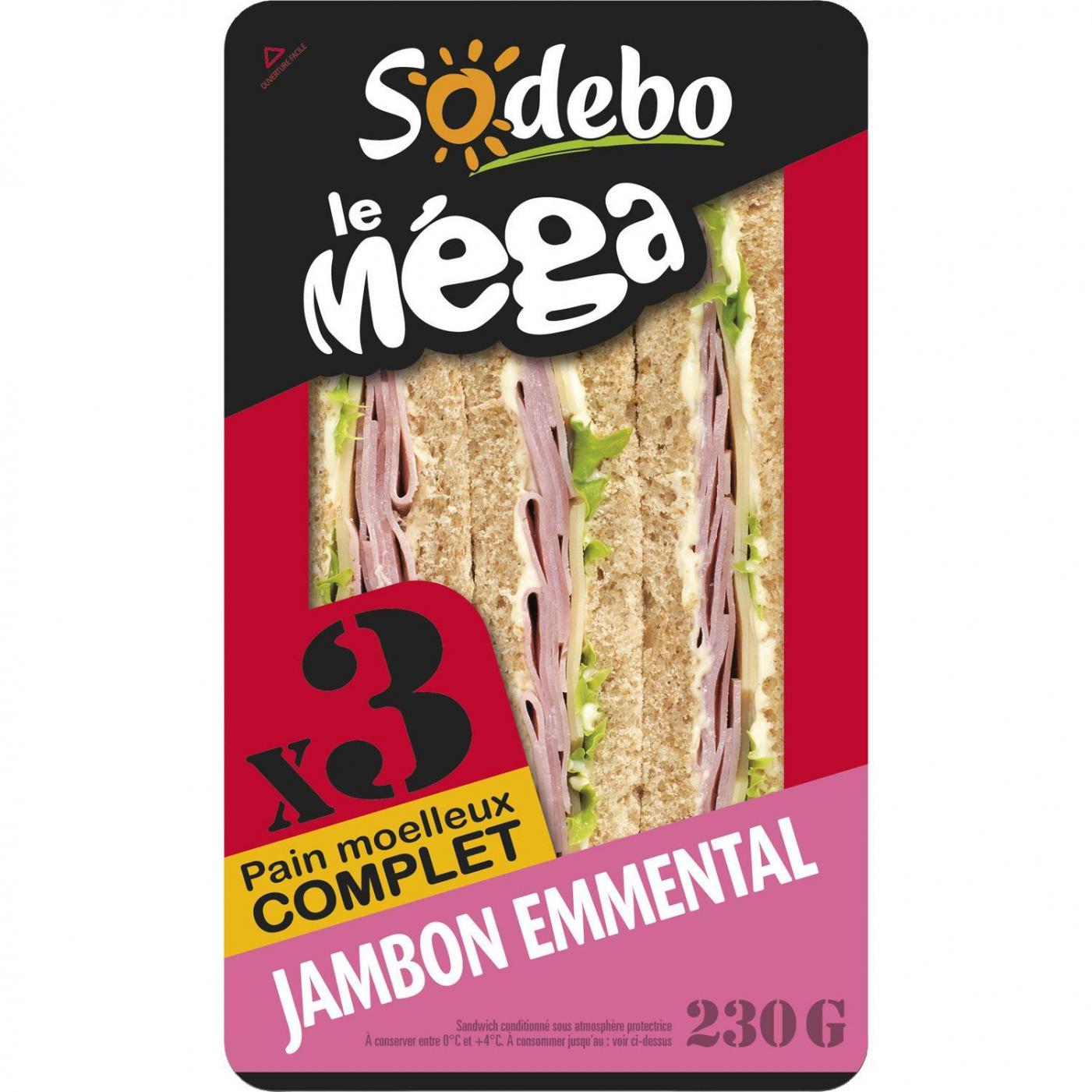
Numbers and letters on sandwich packaging (sodebo)
Hi, i can't find the font from "x3" and the font from"Jambon" used on this sandwich packaging, can you help me please ?
I think it could be Myriad Condensed with a modified |J|.
FF Dax Compact is also similar (and features the right below-the-baseline kind of |J|).